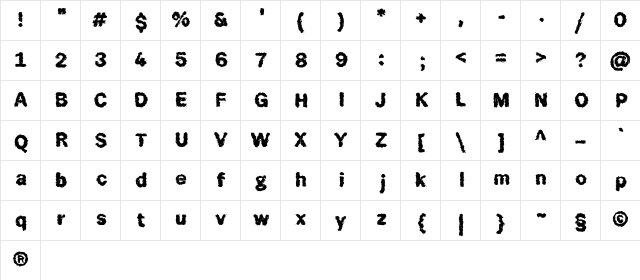
Complete Wehryze Copiya Normal glyph index. Displaying only characters natively supported by Wehryze Copiya Normal font.
Wehryze Copiya is a composed and adaptable typeface that performs quietly and consistently across a wide range of design contexts.